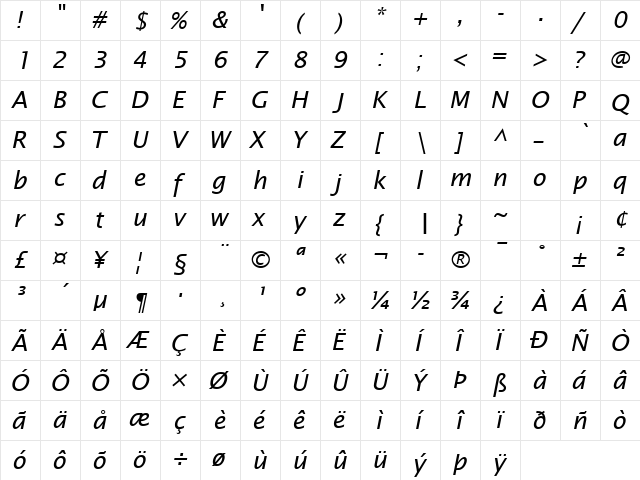
Lucida Becker Sans Italic
Design Context for Lucida Becker Sans Typeface
Lucida Becker Sans offers clean, dependable letterforms without strong stylistic allegiance, making it a practical choice for designers who need flexibility. The dynamic lean of this cut emphasises speed and emphasis in any layout.